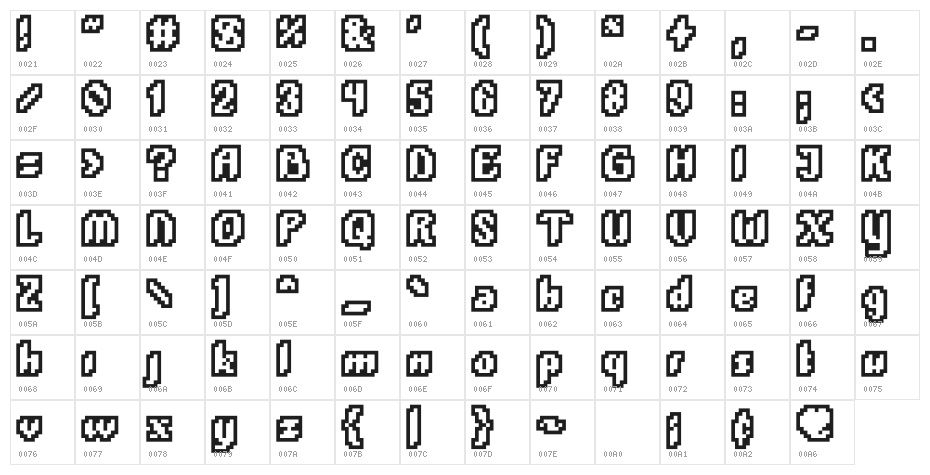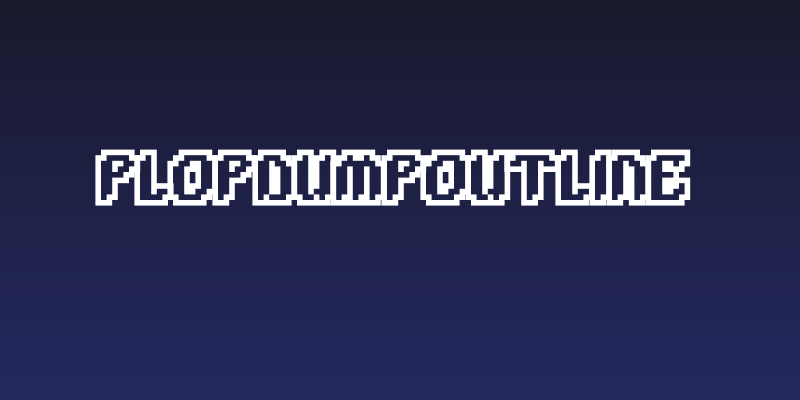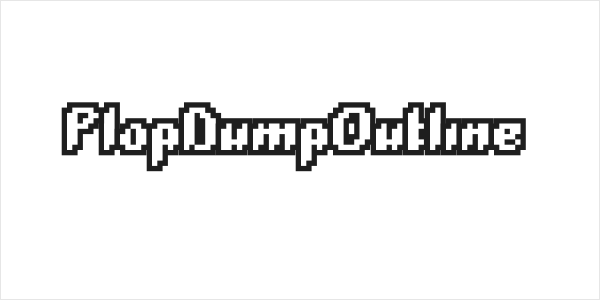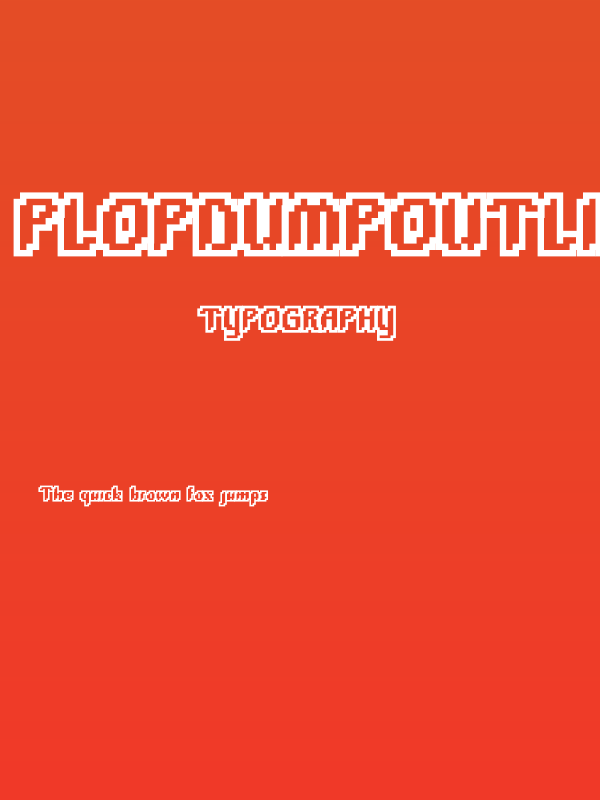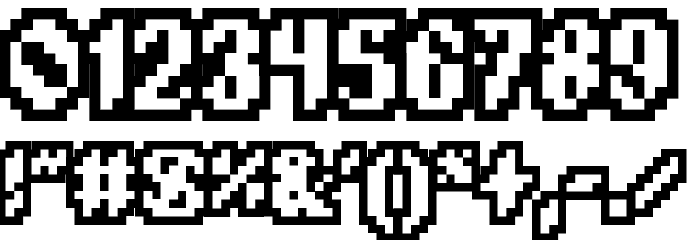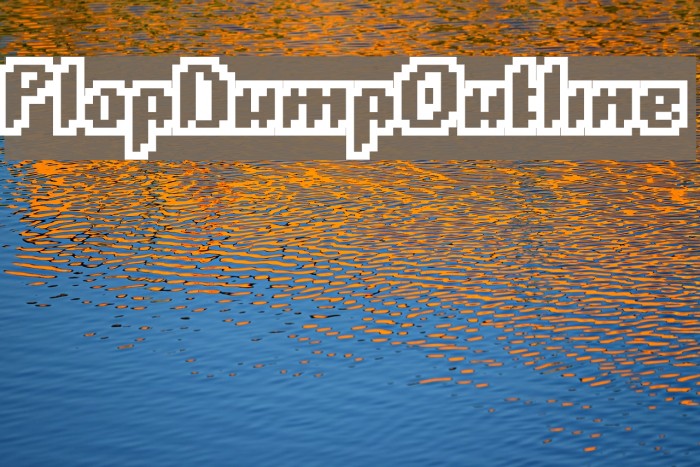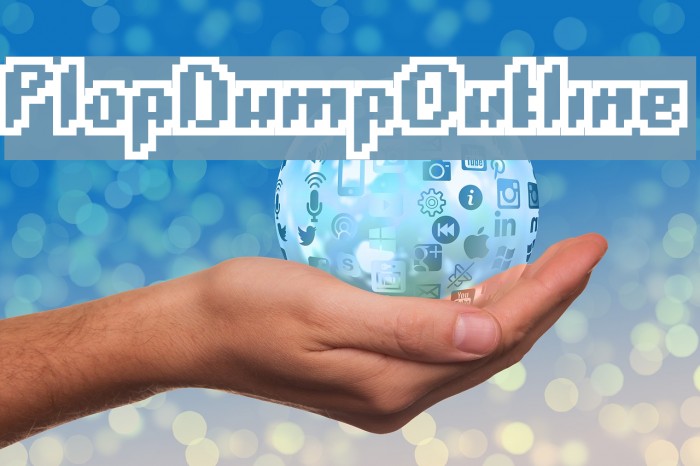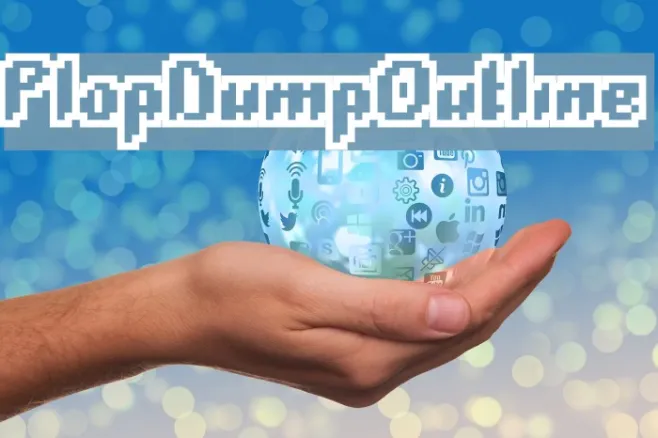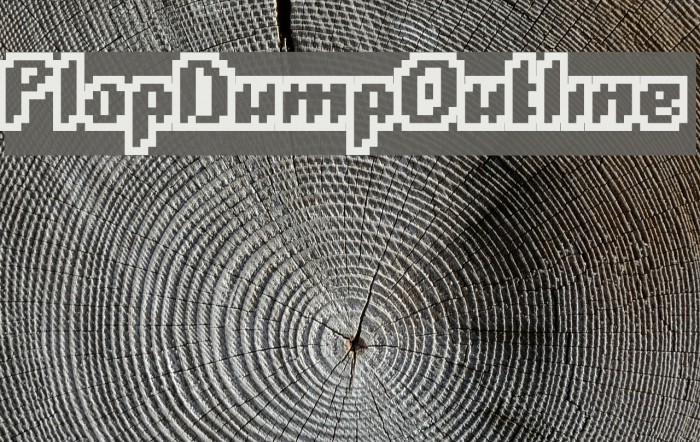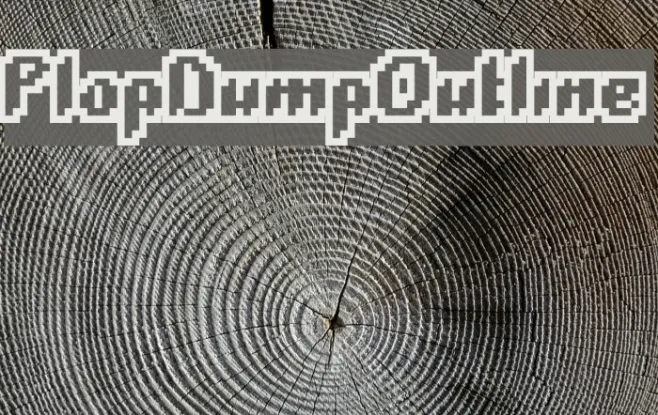
PlopDumpOutline Font
PlopDumpOutline Description
This font features a bold, pixelated outline style reminiscent of retro video games and digital displays. Each character is constructed with a blocky, geometric design, giving it a distinct, playful appearance. The uppercase and lowercase letters maintain a consistent height, while the numbers and special characters follow the same pixelated theme. The thick outlines create a strong visual impact, making it ideal for eye-catching designs. The uniformity in character width and height contributes to its cohesive and structured look, suitable for projects that require a nostalgic or tech-inspired aesthetic.
| Proposed Projects | Ideal for video game graphics, retro-themed posters, digital art, and tech-inspired branding. |